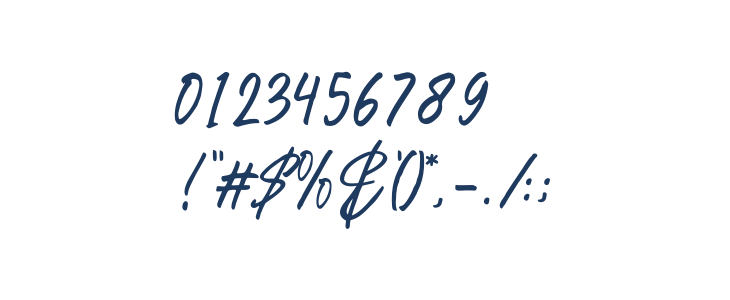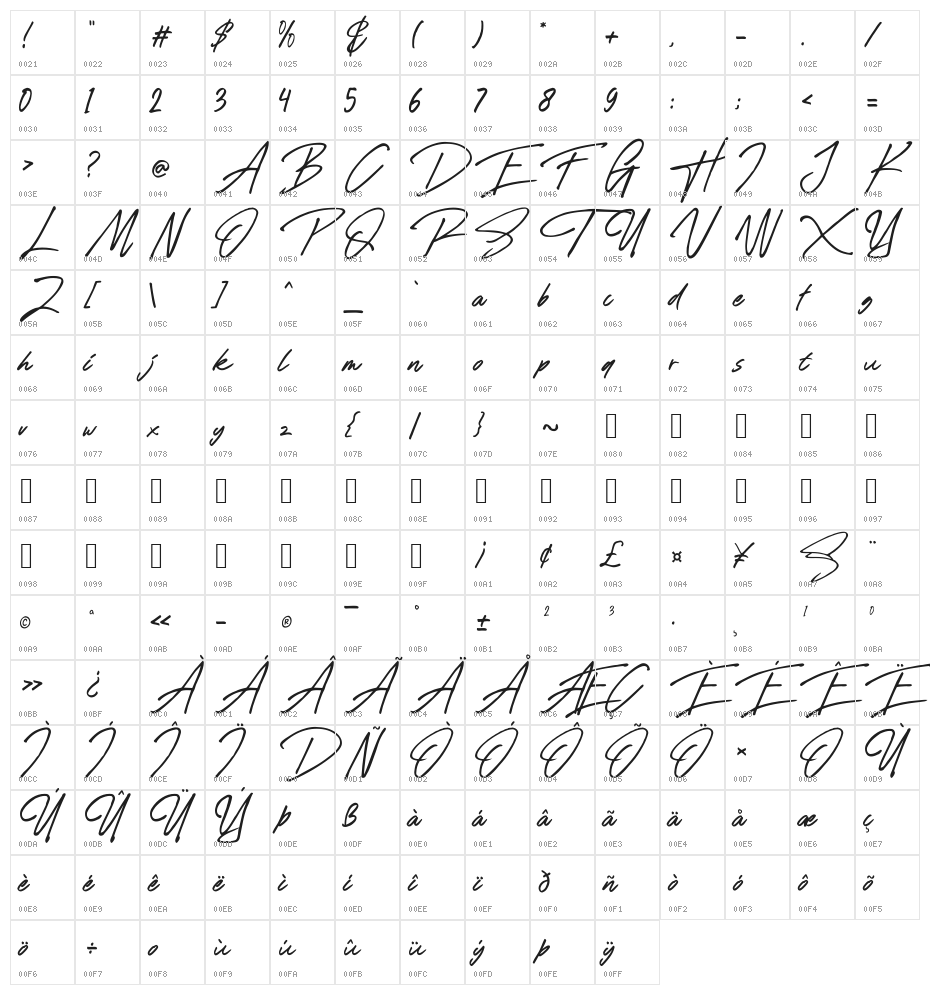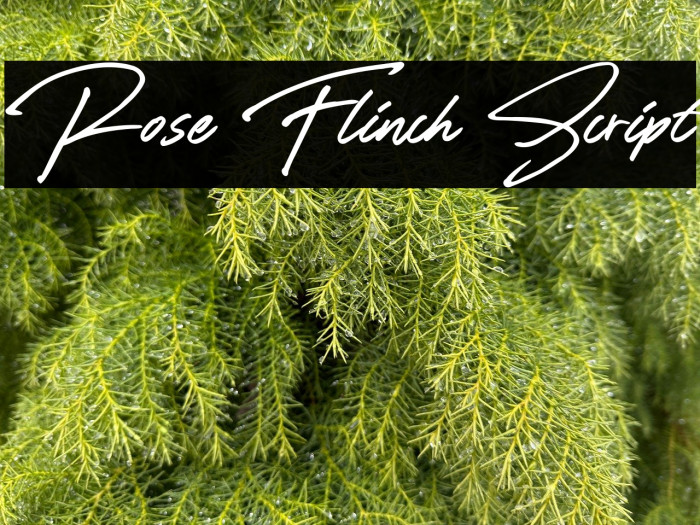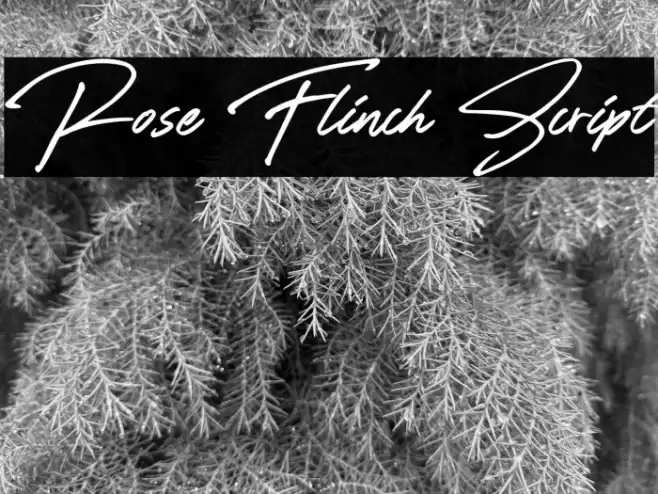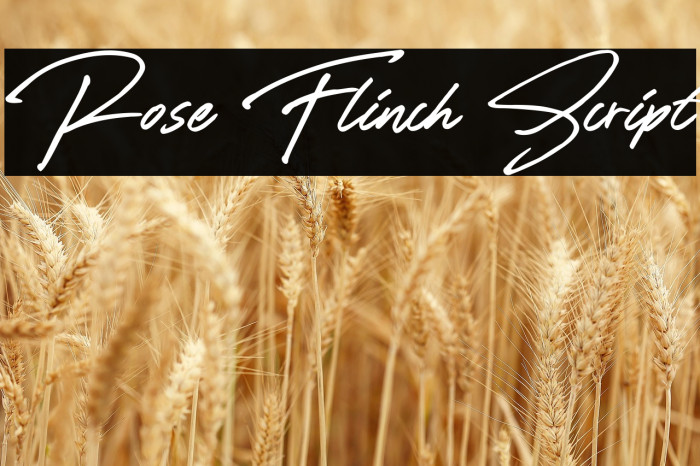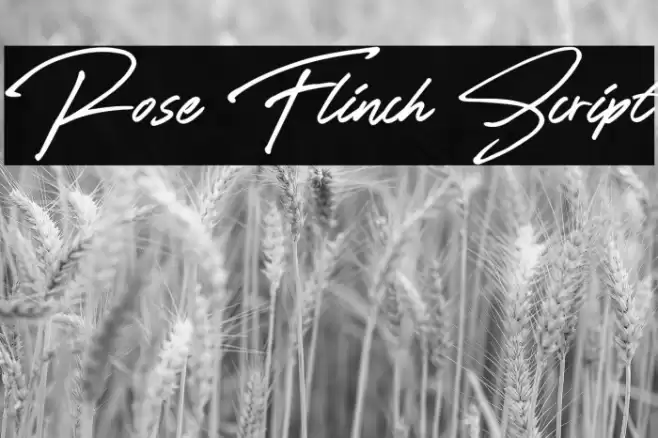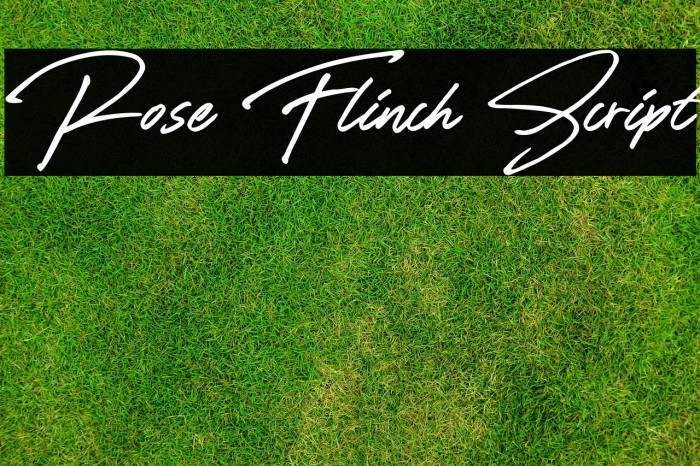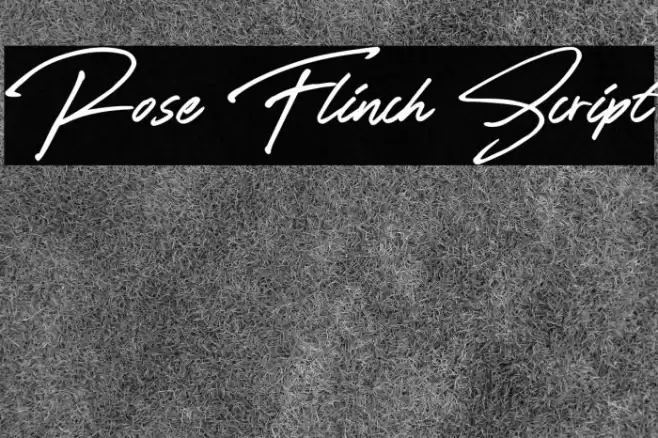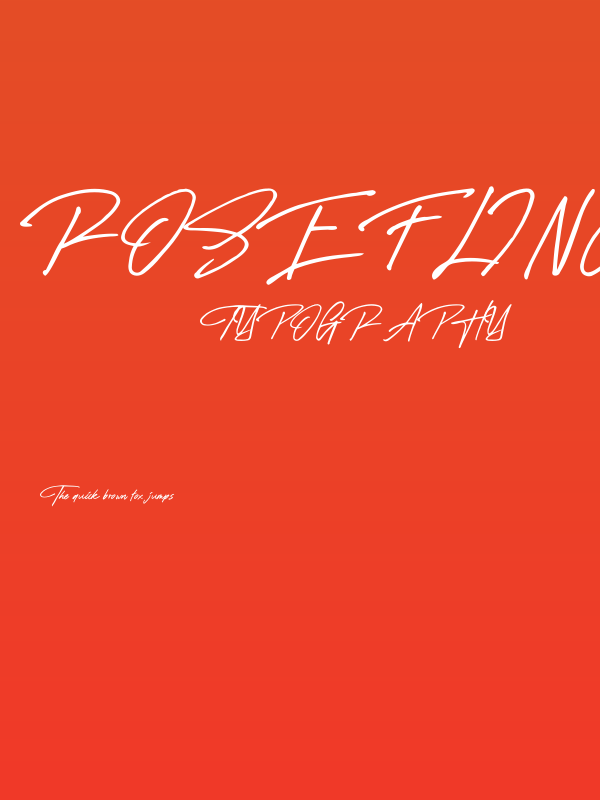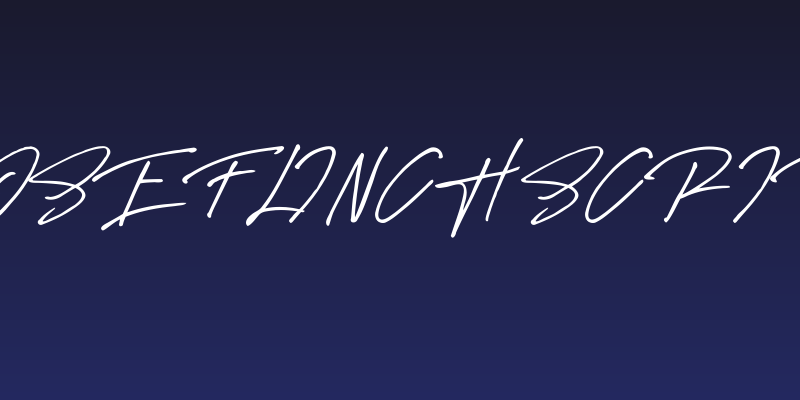
Rose Flinch Script Font
Rose Flinch Script Description
This font features a dynamic and fluid script style, characterized by its elegant and flowing letterforms. The uppercase letters exhibit a graceful, cursive design with a slight slant, giving them a sophisticated and stylish appearance. The lowercase letters maintain a consistent flow, enhancing readability while retaining an artistic flair. Numbers and special characters are crafted with the same attention to detail, ensuring a cohesive look across all text elements. The overall design exudes a sense of elegance and creativity, making it suitable for projects that require a personal and artistic touch.